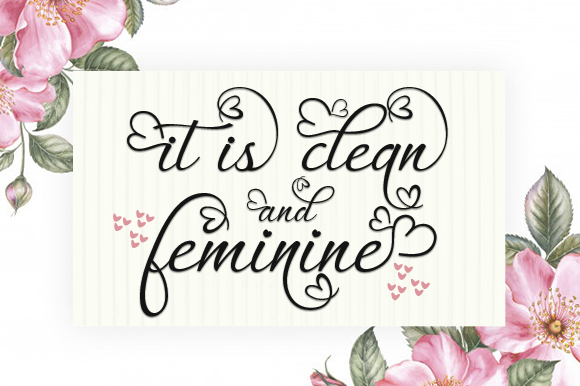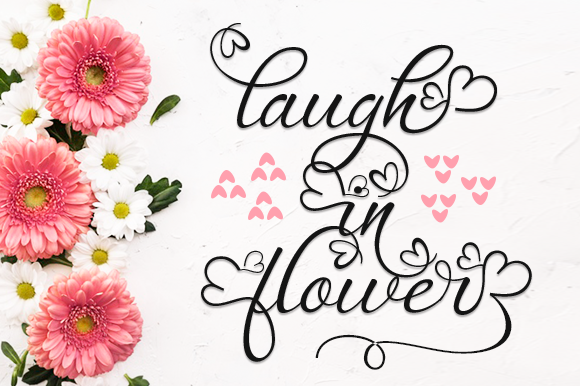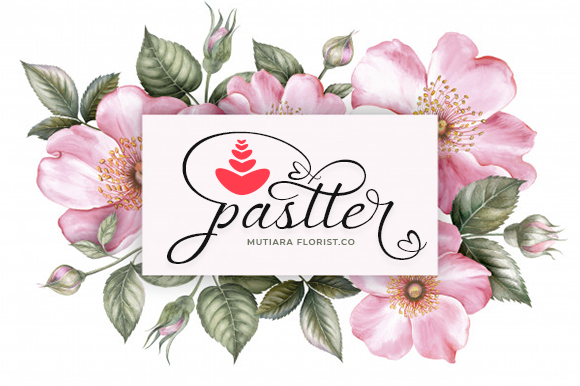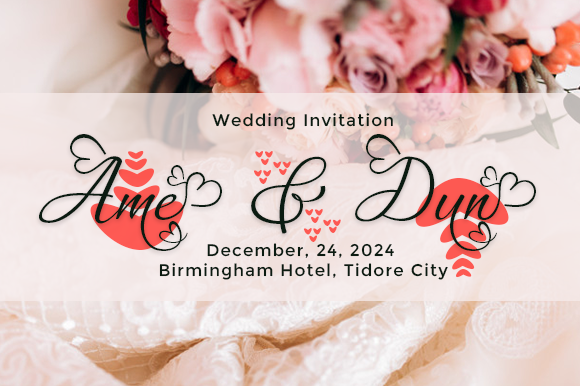
Dhealova Font: Elevate Your Designs with Elegance and Sophistication
In the world of typography, fonts play a crucial role in conveying the tone and personality of a design. For designers and crafters seeking to add a touch of elegance and sophistication to their projects, Dhealova Font is an excellent choice. This magical script font is carefully crafted to bring a sense of timeless elegance and authentic calligraphy to your designs.
The Unique Charm of Dhealova Font
Dhealova Font boasts an incredibly classic style, reminiscent of traditional calligraphy. Its beautiful combination of elegance and friendliness makes it perfect for a wide range of design applications, from wedding invitations and branding materials to social media graphics and packaging. The font’s unique charm lies in its ability to balance sophistication with approachability, making it an excellent choice for designers seeking to create original and outstanding designs.
Key Features of Dhealova Font
- Timeless Elegance: Dhealova Font features a classic style that exudes elegance and sophistication.
- Authentic Calligraphy: The font’s authentic calligraphy feel adds a touch of warmth and personality to your designs.
- Friendliness: Despite its classic style, Dhealova Font still maintains a friendly feel, making it perfect for a wide range of design applications.
- Versatility: The font’s versatility makes it suitable for various design projects, from print materials to digital graphics.
Why Choose Dhealova Font?
With Dhealova Font, you can elevate your designs to new heights. Here are some compelling reasons to choose this magical script font:
- Create Original Designs: Dhealova Font’s unique style allows you to create original and outstanding designs that stand out from the crowd.
- Perfect for Branding: The font’s elegance and sophistication make it perfect for branding materials, such as logos, business cards, and letterheads.
- Easy to Read: Dhealova Font’s clear and legible design ensures that your message is conveyed effectively, making it perfect for body text and headings.
- Multilingual Support: The font supports multiple languages, making it a great choice for designers working on international projects.
Tips for Using Dhealova Font
To get the most out of Dhealova Font, here are some tips to keep in mind:
- Pair with Other Fonts: Combine Dhealova Font with other fonts to create a unique and visually appealing design.
- Experiment with Colors: Try out different color schemes to find the perfect combination that complements Dhealova Font’s elegance.
- Use for Headings and Titles: Dhealova Font is perfect for headings and titles, adding a touch of sophistication to your designs.
In conclusion, Dhealova Font is a magical script font that offers a perfect blend of elegance, sophistication, and friendliness. Its timeless style and authentic calligraphy feel make it an excellent choice for designers and crafters seeking to create original and outstanding designs. With its versatility, multilingual support, and ease of use, Dhealova Font is sure to become a staple in your design toolkit.
So why wait? Discover the magic of Dhealova Font and elevate your designs to new heights. Whether you’re working on a branding project, wedding invitation, or social media graphic, Dhealova Font is the perfect choice for adding a touch of elegance and sophistication.